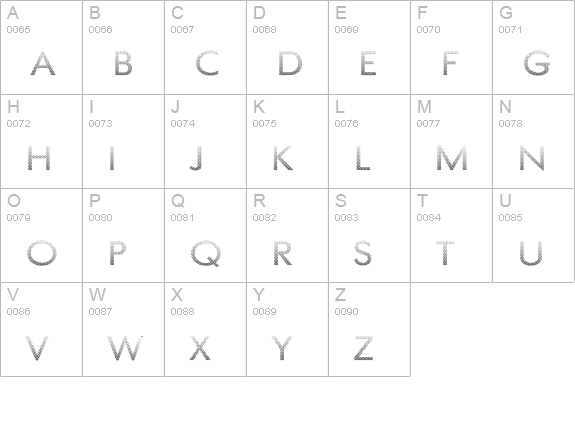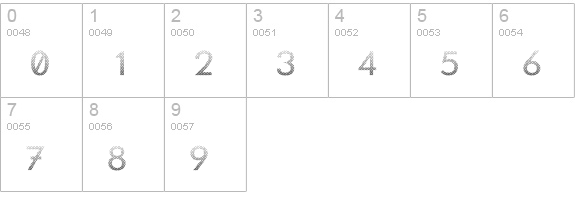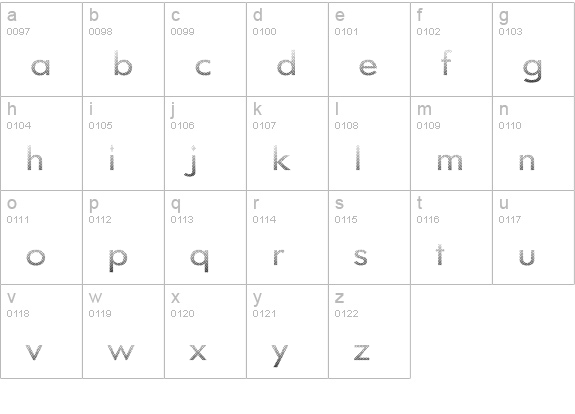
Knurled Grips Font Details
Knurled Grips font is a unique and versatile typeface that exudes a sense of ruggedness and strength. Its distinctive knurled texture gives it a tactile and industrial look, making it perfect for projects that require a touch of boldness and character. The sharp edges and intricate details of this font make it stand out and grab attention. Best of all, Knurled Grips font is completely free to download at FontsMarket.com. This means you can easily add this eye-catching typeface to your design arsenal without any cost. Whether you're working on a poster, logo, or any other creative project, Knurled Grips font is sure to make a powerful statement. Download it today and unleash its full potential in your designs!